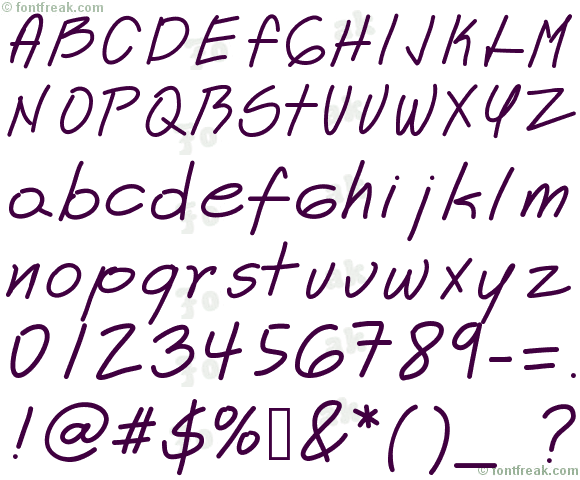
Astrid
About Astrid
Astrid, designed by Carolina Mejia, is a captivating handwritten font that embodies elegance and creativity. This font features a unique blend of fluid strokes and organic shapes, resulting in a warm and inviting aesthetic. The medium stroke weight provides a balanced appearance, while the gentle contrast between thick and thin lines adds a touch of sophistication. The spacious kerning ensures readability, making it suitable for various applications.
Astrid is versatile and can be effectively used in a range of contexts. It shines in wedding invitations, where its charming style can convey romance and joy. Additionally, it is perfect for creating eye-catching movie posters, offering a personal touch that draws attention. Restaurant menus can also benefit from Astrid's inviting nature, helping to create an atmosphere that welcomes patrons. Content creators will find this font ideal for social media graphics, as it adds a unique flair that stands out in a crowded digital landscape. Graphic designers looking to enhance their projects with a personal, handwritten style will appreciate Astrid’s appeal.
The target audience for Astrid encompasses graphic designers, small business owners, and content creators seeking to elevate their visual communication. This font allows users to express their unique brand identity and connect with their audience on a personal level.
What truly sets the Astrid font apart is its ability to blend artistic charm with functionality. The balance of its handwritten style and readability makes it a valuable asset for anyone looking to make a memorable impression. With the Astrid font free download, you can easily incorporate this stunning typeface into your projects, ensuring your designs are both captivating and professional.